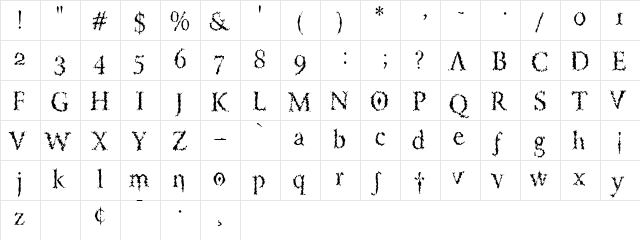
PorcupineRoman Regular
Design Context for PorcupineRoman Typeface
PorcupineRoman is a composed and adaptable typeface that performs quietly and consistently across a wide range of design contexts.